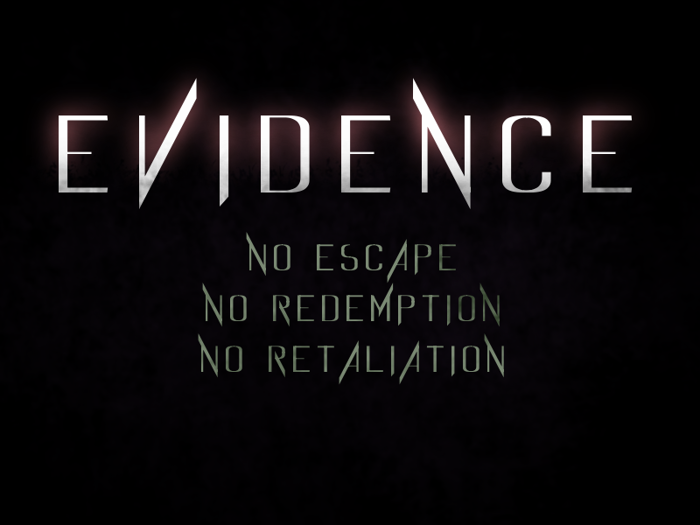
Evidence Font
In the barren world, deep within the earth, a shadow holds the greatest treasure, guarded in mysteries and riddles only the gods know the answer to.